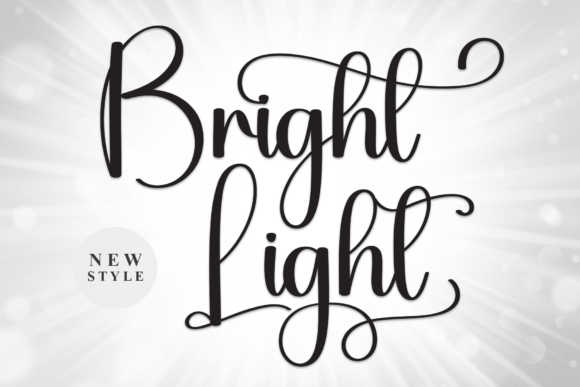
Introducing Bright Light Font: The Epitome of Freshness and Elegance
In the realm of typography, few fonts manage to capture the essence of freshness and casual elegance as effectively as Bright Light. This charming handwritten font has been designed to infuse designs with a laid-back vibe, making it an ideal choice for a myriad of projects. From branding and invitations to social media graphics, Bright Light brings a unique blend of warmth and personality that sets it apart from more conventional fonts.
The Characteristics of Bright Light Font
Bright Light is distinguished by its fluid strokes and organic lines, which contribute to its effortless and casual feel. The font’s design is characterized by:
- Fluid Strokes: The fluidity of Bright Light’s strokes gives it a dynamic and lively appearance, making it perfect for designs that require a sense of movement and energy.
- Organic Lines: The organic nature of the font’s lines adds a touch of human touch, making it relatable and engaging.
- Handwritten Style: As a handwritten font, Bright Light possesses a personal and intimate feel, which is ideal for creating a connection with the audience.
Applications of Bright Light Font
The versatility of Bright Light makes it suitable for a wide range of design applications. Some of the most popular uses of this font include:
- Branding: Bright Light can be used to create a unique and memorable brand identity that reflects the company’s personality and values.
- Invitations: The font’s elegant and casual style makes it perfect for invitations, such as wedding invitations, birthday party invitations, and other social events.
- Social Media Graphics: Bright Light can be used to create engaging social media graphics, including posts, stories, and ads, that capture the audience’s attention.
- Packaging: The font’s fresh and elegant style makes it suitable for packaging designs, such as product labels and packaging inserts.
Benefits of Using Bright Light Font
Using Bright Light in design projects offers several benefits, including:
- Uniqueness: Bright Light’s distinctive style sets it apart from more traditional fonts, making it an excellent choice for designers looking to create a unique visual identity.
- Emotional Connection: The font’s handwritten style and organic lines create an emotional connection with the audience, making it ideal for designs that require a personal touch.
- Versatility: Bright Light’s versatility makes it suitable for a wide range of design applications, from digital designs to print materials.
Tips for Using Bright Light Font Effectively
To get the most out of Bright Light, consider the following tips:
- Pair it with Other Fonts: Bright Light can be paired with other fonts to create a unique and visually appealing typography.
- Use it in Headings and Titles: The font’s elegant style makes it perfect for headings and titles, where it can be used to create a lasting impression.
- Experiment with Colors: Bright Light can be used with a variety of colors to create different moods and effects.
Bright Light is a charming handwritten font that offers a unique blend of freshness and elegance. Its fluid strokes, organic lines, and casual style make it perfect for a wide range of design applications, from branding and invitations to social media graphics. With its versatility, emotional connection, and uniqueness, Bright Light is an excellent choice for designers looking to add a touch of warmth and personality to their designs.
- What is Bright Light font? Bright Light is a charming handwritten font designed to infuse designs with a sense of freshness and casual elegance.
- What are the characteristics of Bright Light font? Bright Light is characterized by its fluid strokes, organic lines, and handwritten style.
- What are the applications of Bright Light font? Bright Light can be used for branding, invitations, social media graphics, packaging, and more.